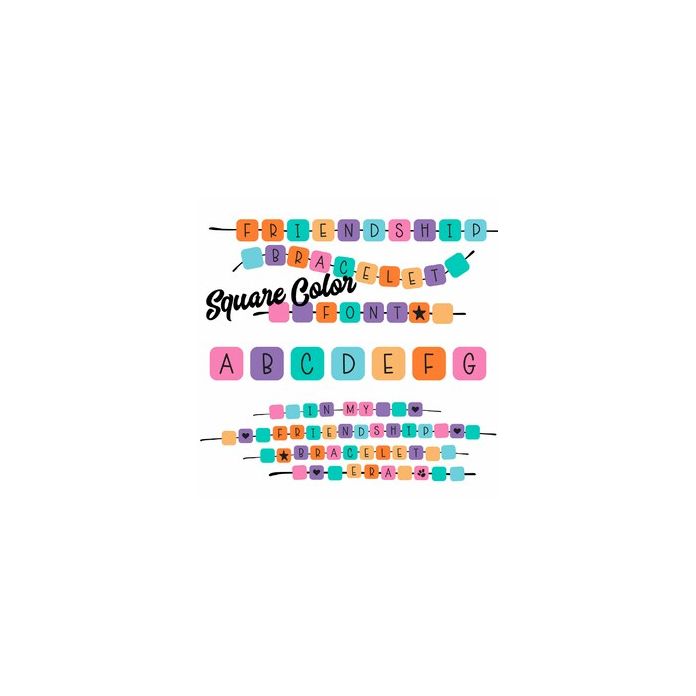
Friendship Bracelet Era Square Color Font
Square Colorful beads for letters also includes color beads to mix up patterns, numbers, icons and straight and wavy threads to create your own friendship bracelet words, titles and quotes.